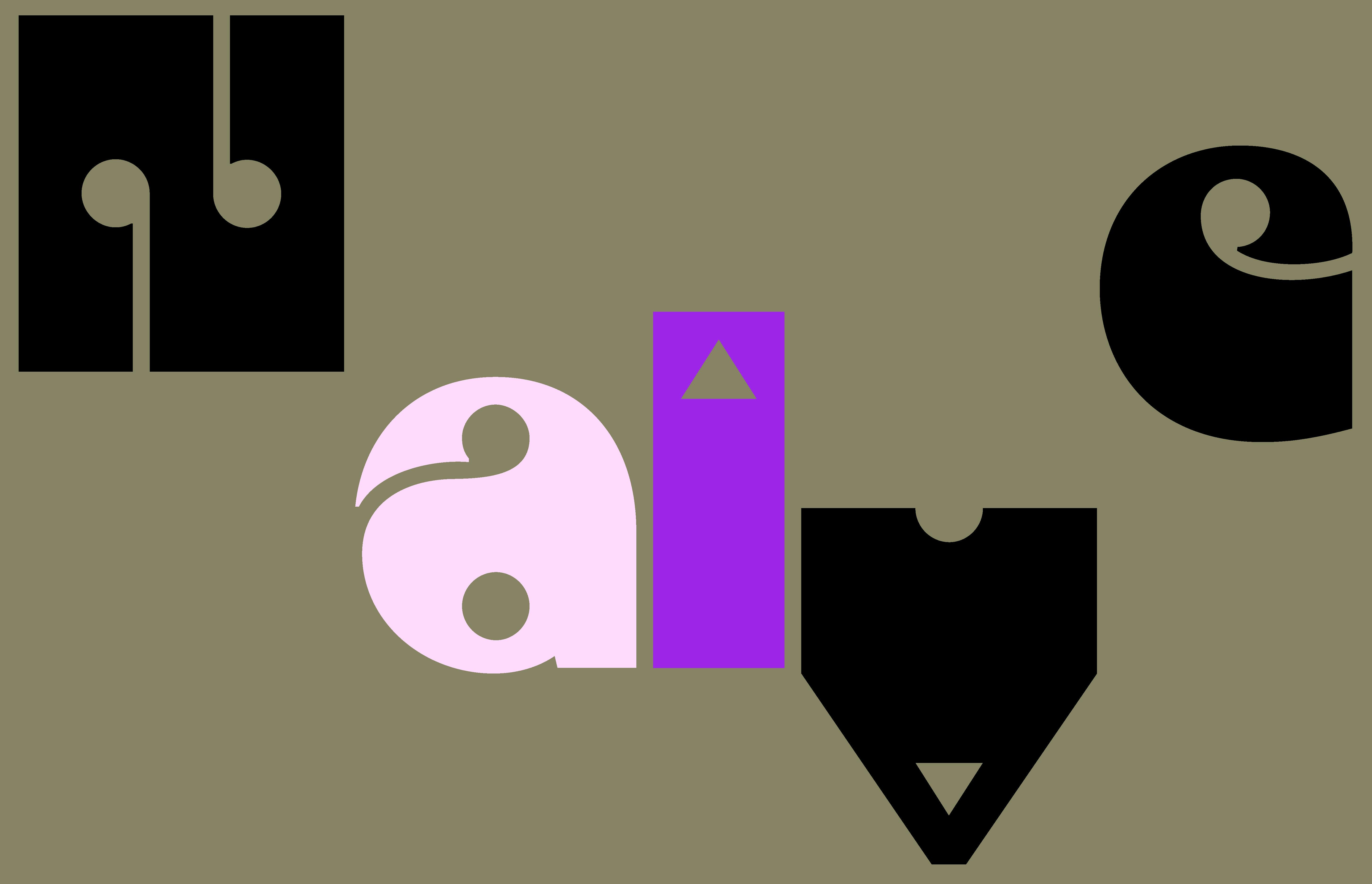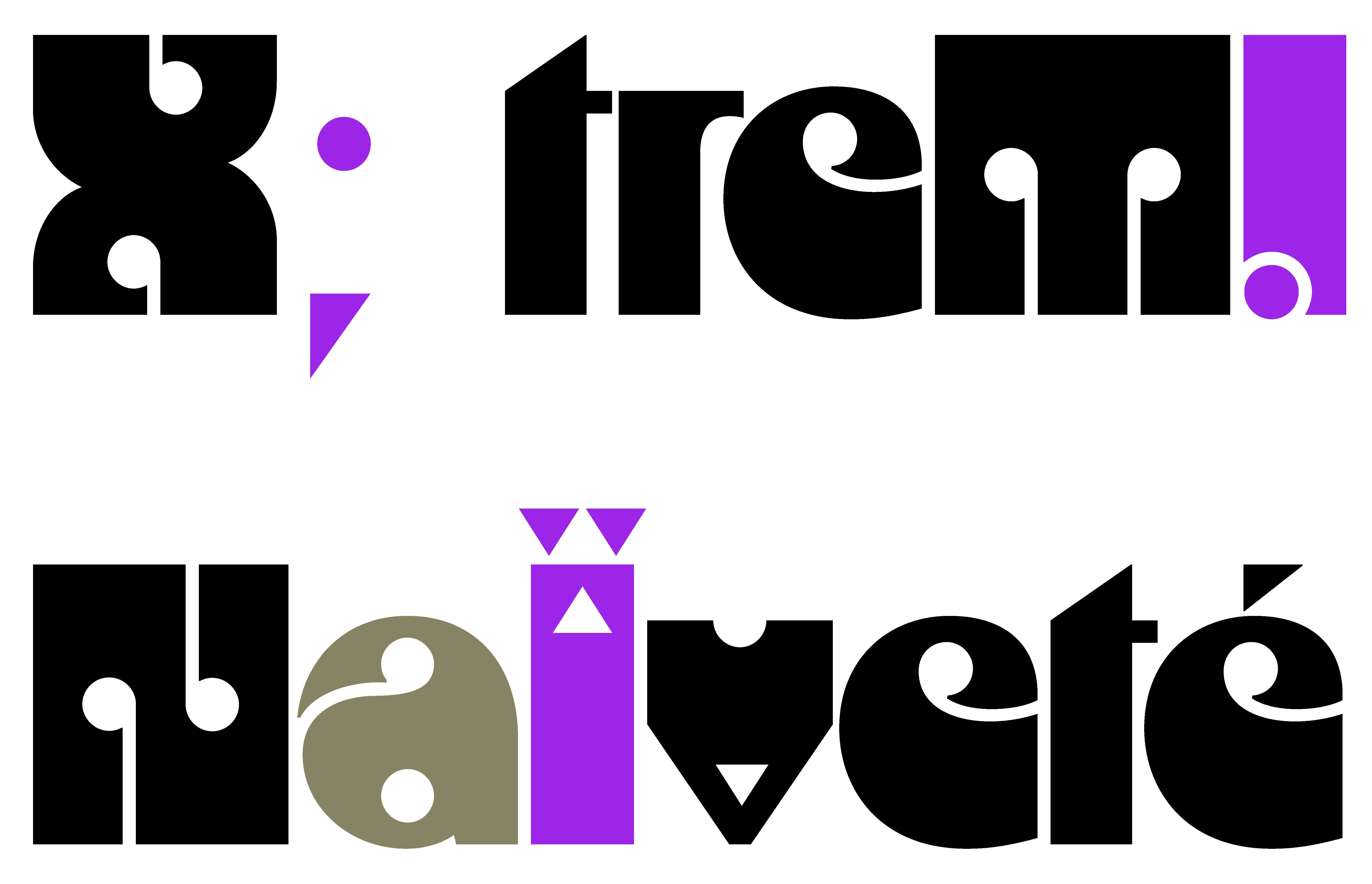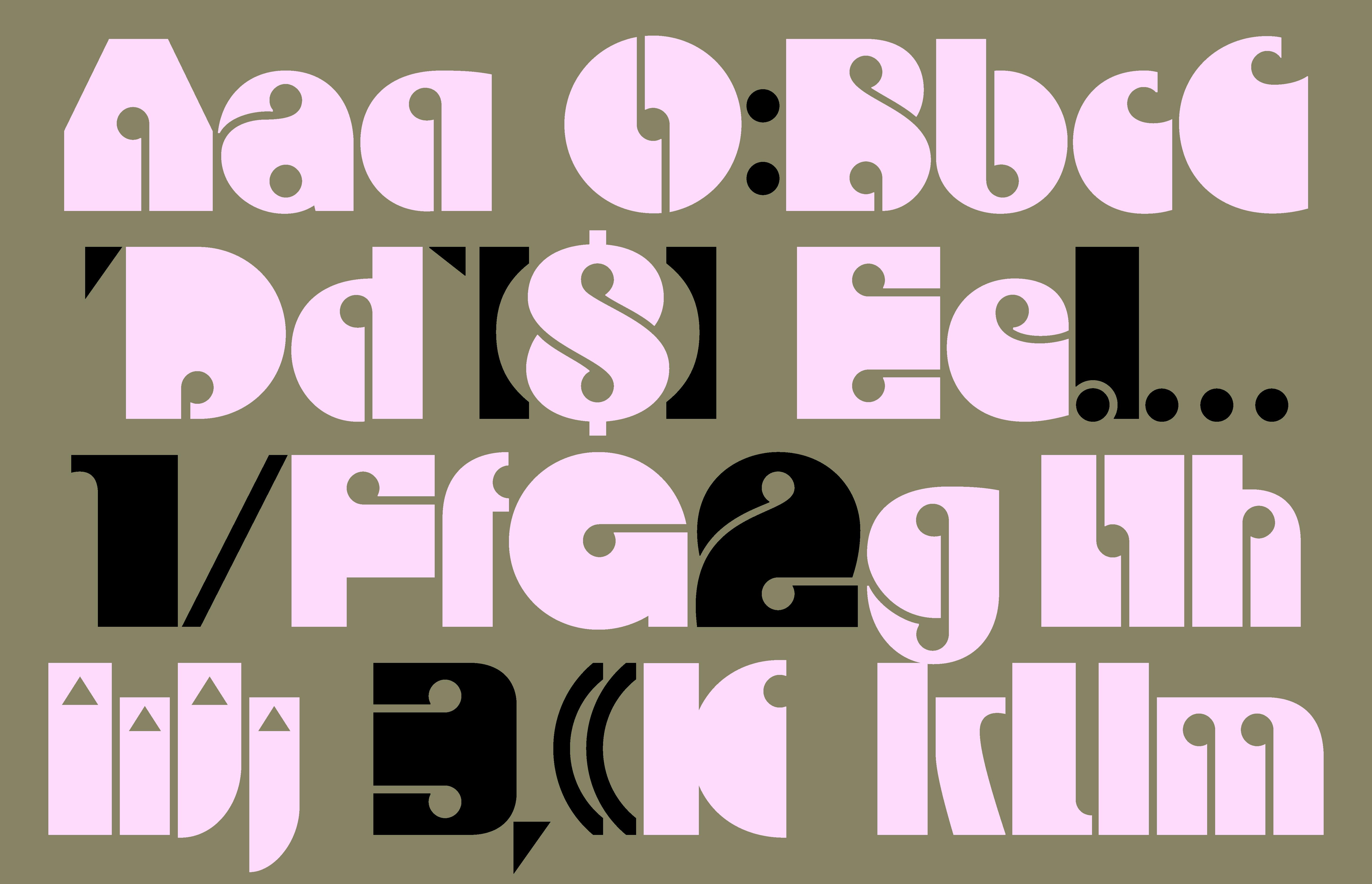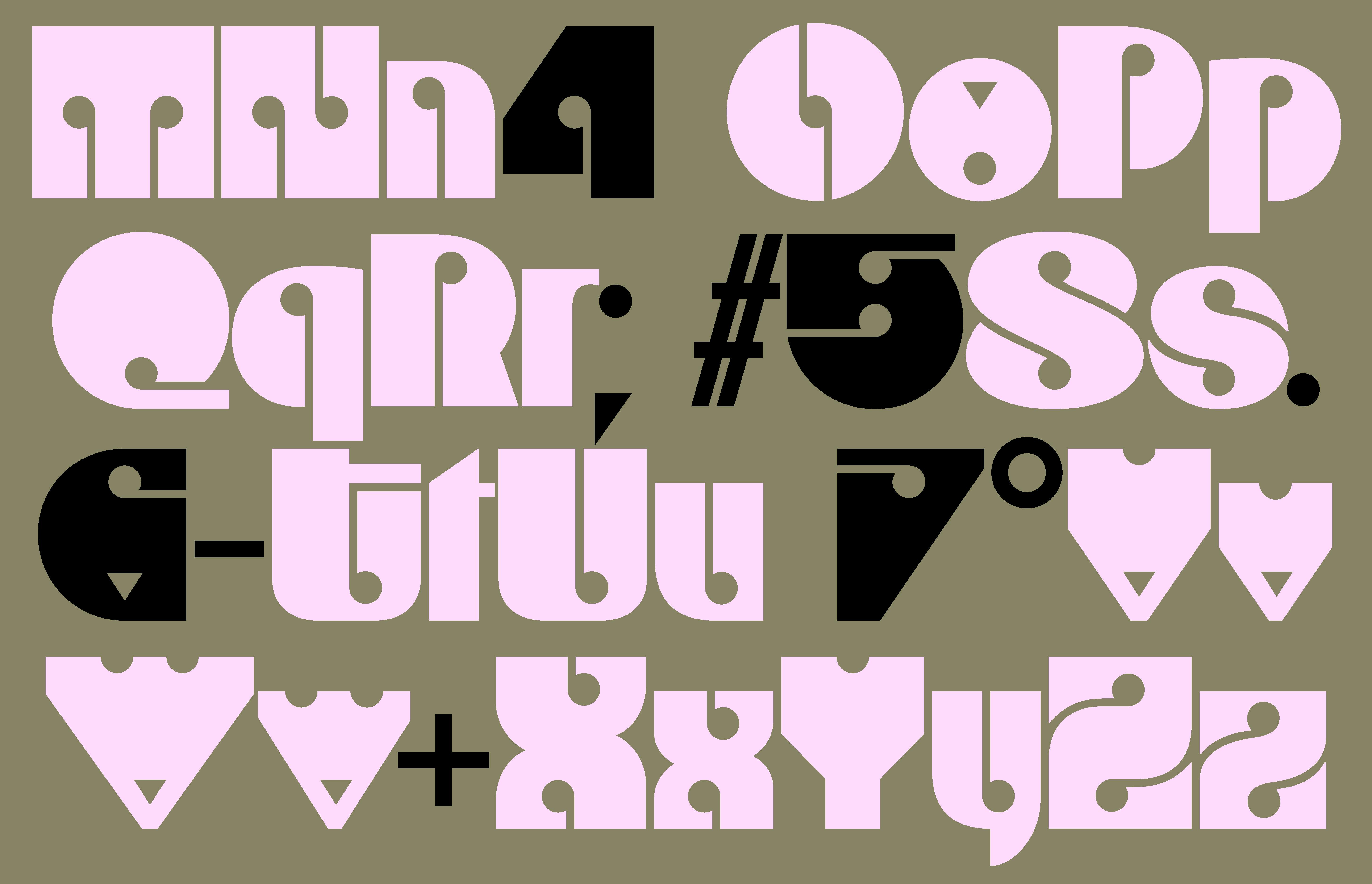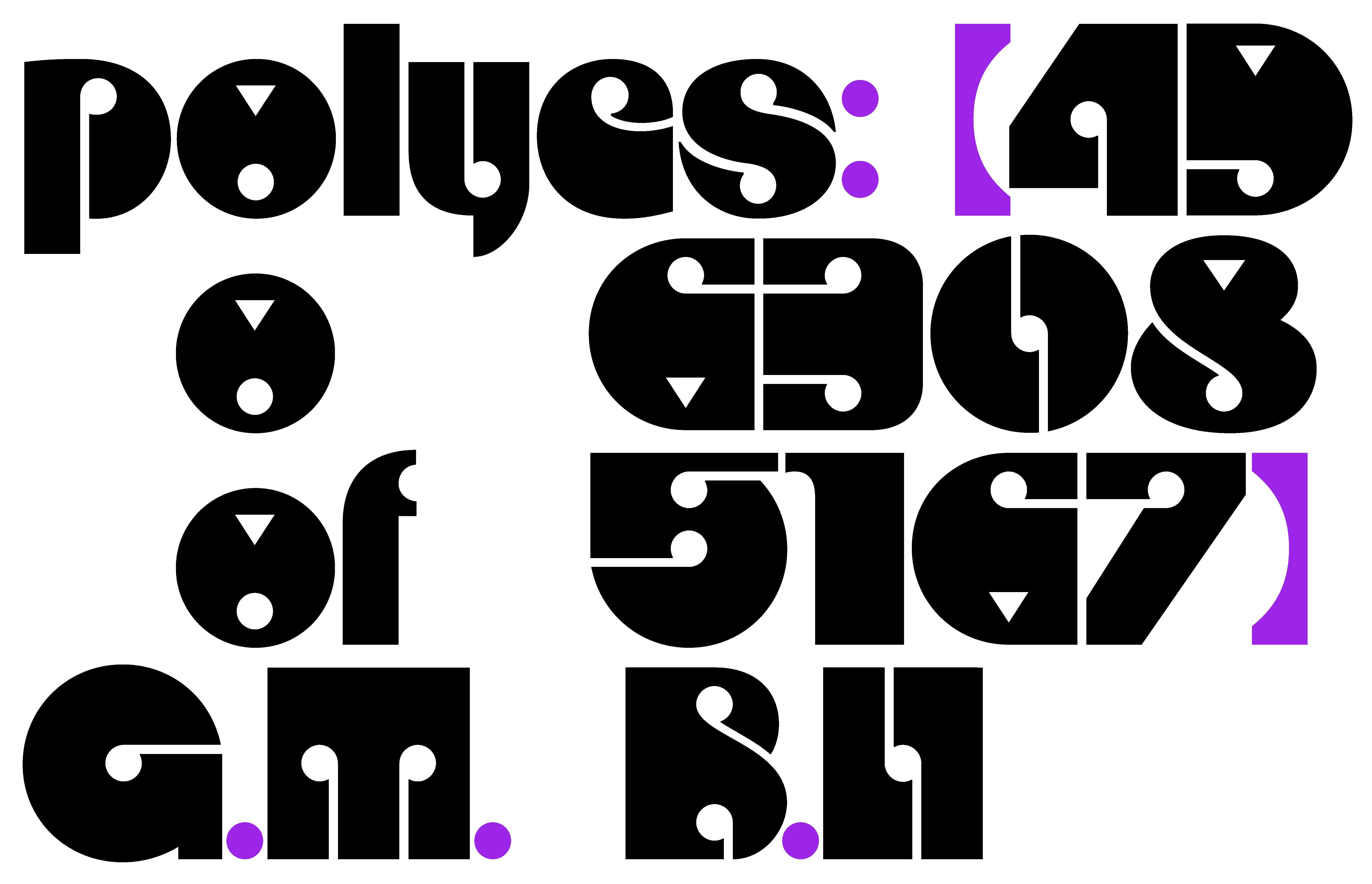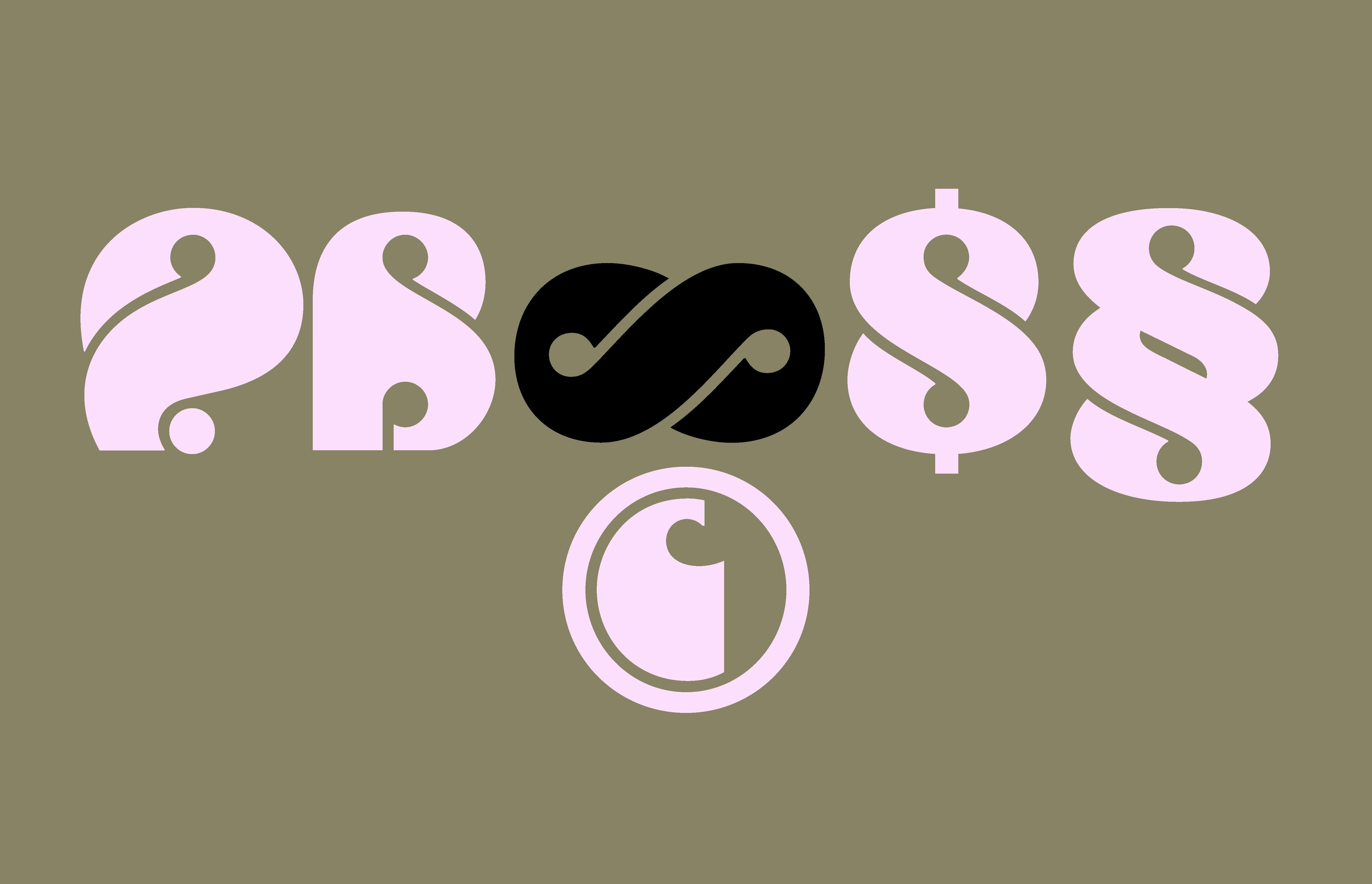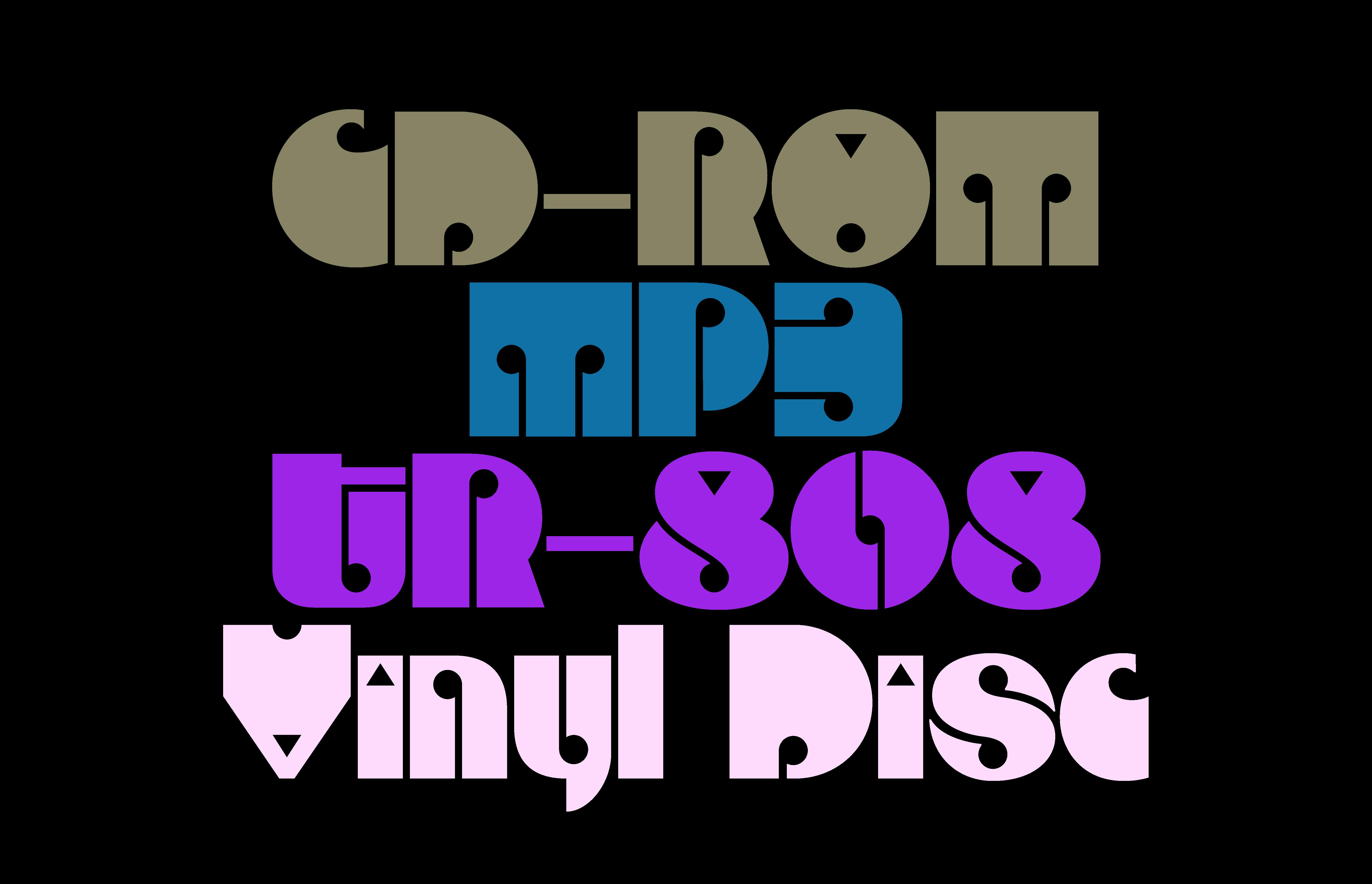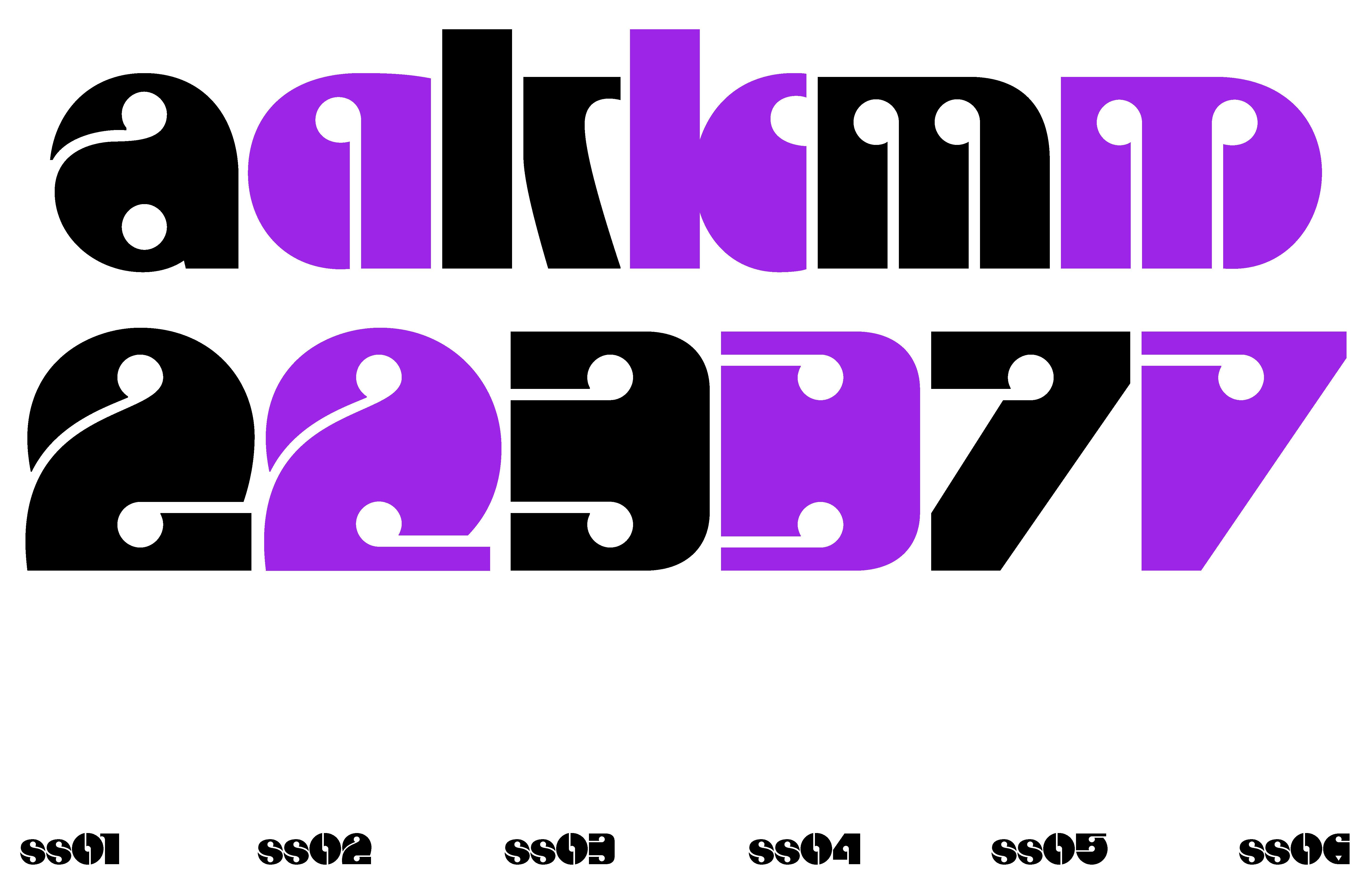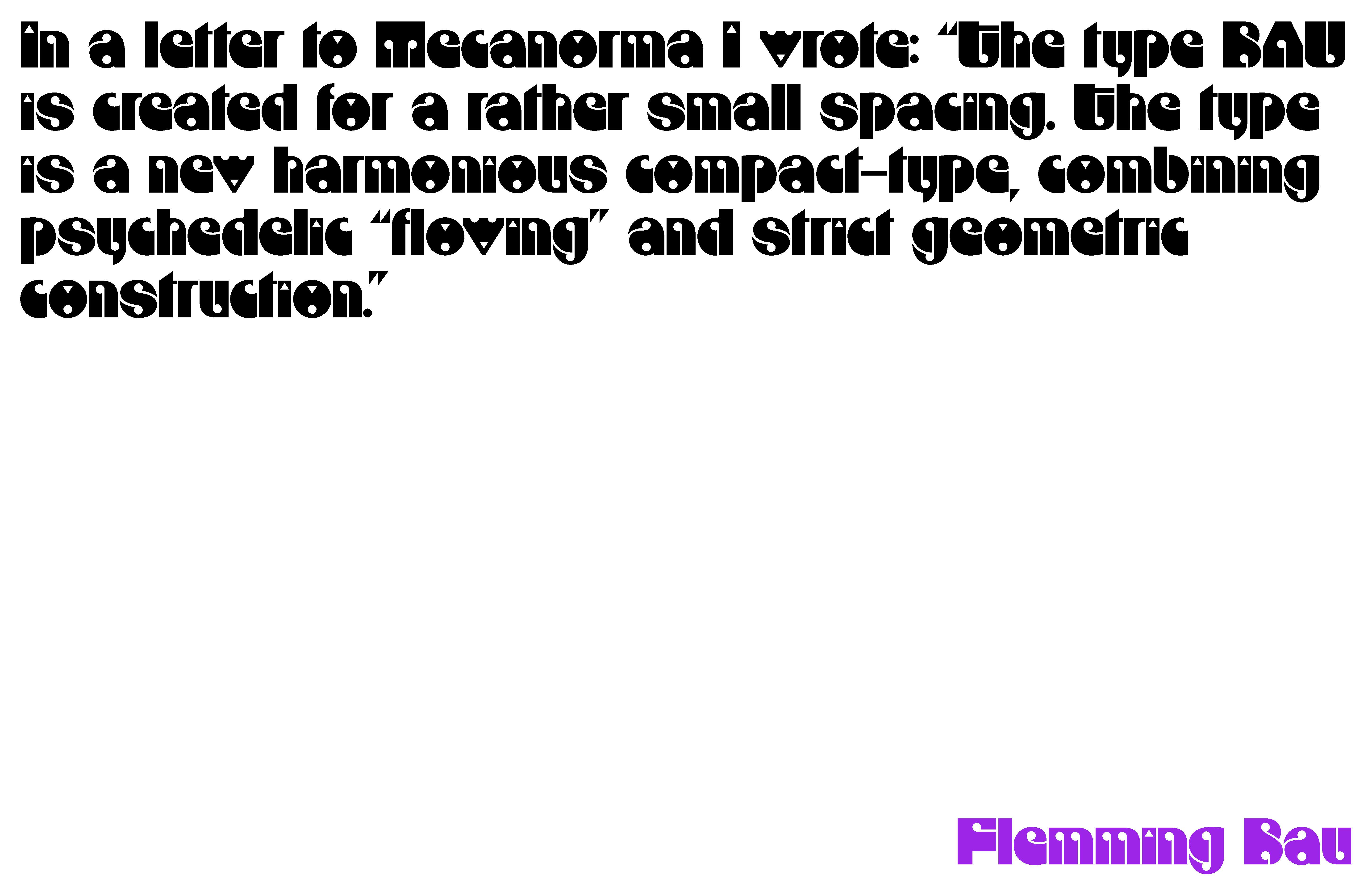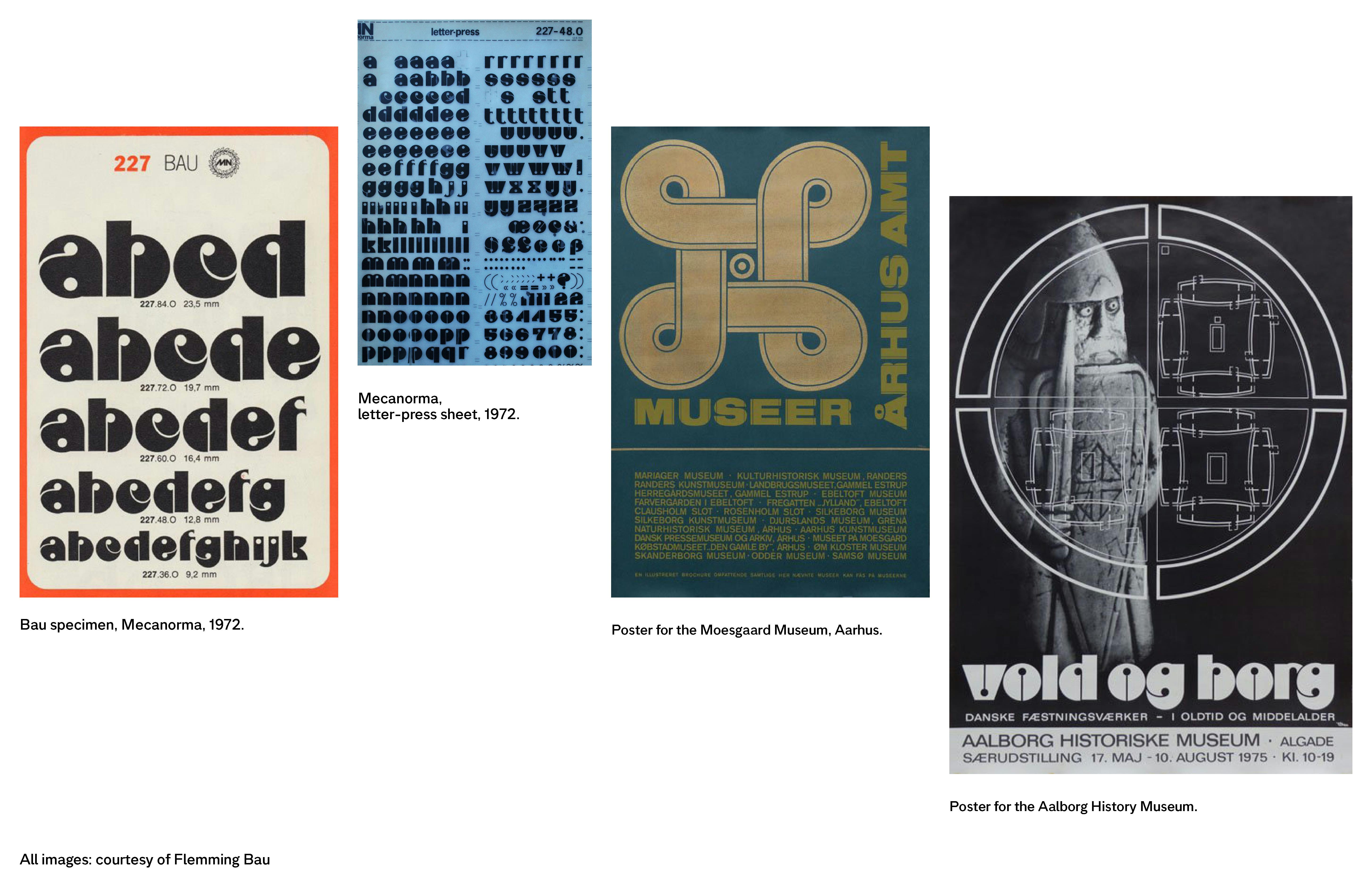
Unadorned, spontaneous, and naive.
Naive is a free interpretation of Bau, a 1970s font designed by Flemming Bau. These intriguing circle-based letters have a strong and direct expression that caught our attention, so we had to take a closer look at Flemming's work. His graphic work, fueled by Danish Viking craftsmanship and ornamentation, reached a global audience thanks to Mecanorma, a former international foundry that used to organize an annual typography competition. Flemming won with Bau in 1972. He told us about it:
"I was the head designer at Moesgård Museum in Aarhus, working as an exhibition designer and illustrator with archaeological and ethnographic themes – exhibitions, posters, book design, and artifact drawings. For this museum, I created the 'Bau' font, and after that, I designed the entire alphabet for Mecanorma. In a letter to them, I wrote: 'The Bau type is created for rather small spacing. The type is a new, harmonious, compact type, combining psychedelic 'flowing' elements and strict geometric construction."
We have imagined Bau in a new light adding uppercases, thanks to a geometric drawing system. Today, these powerful shapes have returned to the contemporary graphic design landscape as a fully functional font. Naive, yes, but not foolish! From edgy headlines to freaky logotypes and psychedelic posters, these shapes resist instant reading, making them ideal for all kinds of graphic productions that need to catch the eye and surprise the reader.
Psychedelic & vibrants geometric shapes